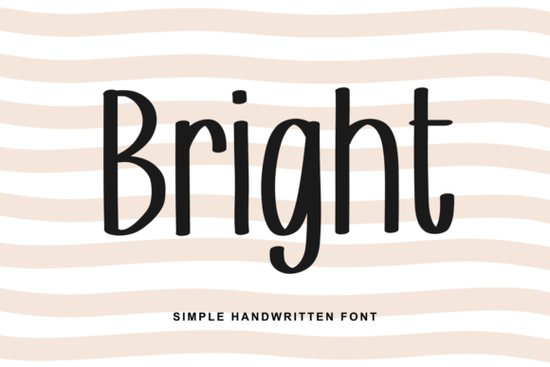
If you've been searching for a handwritten font that feels warm, friendly, and easy to read, the Bright Font is worth a close look. It's a cheerful typeface with tall, playful letterforms and naturally flowing strokes the kind that makes text feel approachable without looking messy. Whether you design greeting cards, social media posts, or product packaging, Bright adds a personal, handcrafted quality that stands out from typical script fonts.
What kind of projects is Bright font best suited for?
Bright works well across a wide range of creative projects. Its casual but clean design makes it versatile enough for both print and digital use. Here are some of the most common ways designers and crafters put it to work:
- Greeting cards birthday, thank-you, holiday, and encouragement cards
- Social media graphics quotes, announcements, and story templates
- Children's projects party invitations, classroom materials, kids' book covers
- Branding and packaging logos, labels, product tags, and box designs
- Merchandise t-shirts, mugs, tote bags, and stickers
- Invitations weddings, baby showers, and casual events
Its handcrafted appearance gives designs a human touch that stock-looking typefaces often lack. And because the letterforms are tall and well-spaced, readability stays strong even at smaller sizes something that many handwritten fonts struggle with.
How does Bright compare to other handwritten fonts?
There are plenty of handwritten fonts out there, so what makes this one different? The main thing is the balance between playfulness and clarity. Some script fonts lean too far into cursive territory and become hard to read. Others try to look casual but end up feeling stiff. Bright sits in a comfortable middle ground it's expressive enough to feel personal, but clean enough to use in professional contexts.
For comparison, fonts like Longmile and Mafuinka offer more flowing, cursive-style strokes that work beautifully for elegant or romantic designs. Meanwhile, Friends brings a fun, rounded personality that's great for lighthearted branding. If you want something with a relaxed, summery feel, Ordinary Summer captures that laid-back energy well.
Bright is different from all of these because it's not strictly a script font. The letters are individually formed, giving it a more modern, approachable look while still feeling hand-drawn. This makes it a strong choice for designs where you want warmth without sacrificing legibility.
Can I use Bright for print-on-demand products?
Absolutely. One of the strengths of this typeface is how well it translates to merchandise and print-on-demand. The letterforms are bold enough to read on physical products like t-shirts, mugs, and tote bags, and the cheerful tone fits naturally with the kinds of positive, feel-good messages that sell well on these platforms.
If you run an Etsy shop or sell through a POD service, Bright works nicely for:
- Motivational quote designs think "Choose Joy" or "Good Vibes Only"
- Personalized items custom names, monograms, and gift labels
- Seasonal products holiday-themed merchandise and limited edition collections
- Lifestyle branding wellness, self-care, and home décor designs
What fonts pair well with Bright?
Since Bright has a handcrafted, casual personality, it pairs best with simpler companion fonts that don't compete for attention. A clean sans-serif works well for body text or supporting details, while Bright handles the headlines or focal phrases. You can also combine it with a subtle serif for projects that need a slightly more polished feel.
When choosing a pairing, look for contrast in both weight and style. If Bright is doing the heavy lifting as your display font, keep the secondary font light and neutral. This creates a visual hierarchy that guides the reader's eye naturally.
Does it work for both screen and print?
Yes, and this is an important practical detail. Bright maintains its readability and character across both digital and print formats. On screens, the clean spacing keeps text sharp. In print, the handcrafted texture comes through beautifully especially on textured paper stock or kraft-style packaging.
For best results, make sure to test it at the actual size you plan to use. Handwritten fonts can look different at 12pt versus 48pt, and a quick print preview helps you catch any spacing issues before final production.
Quick checklist before you start using Bright
- ✅ Test readability at the sizes you'll actually use especially for smaller text
- ✅ Choose a clean companion font for body text or secondary information
- ✅ Print a sample if you're creating physical products what looks good on screen might need size adjustments in print
Start by using Bright on one simple project a quote graphic, a card, or a product label and see how it fits your style. From there, you'll quickly get a feel for where it works best in your creative toolkit.